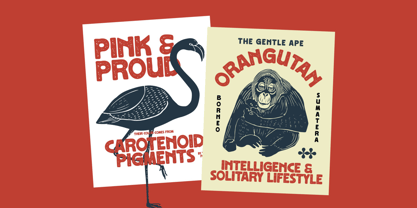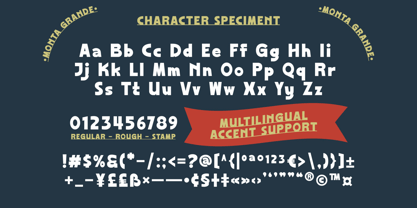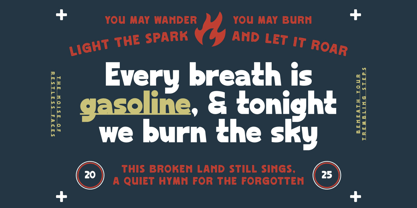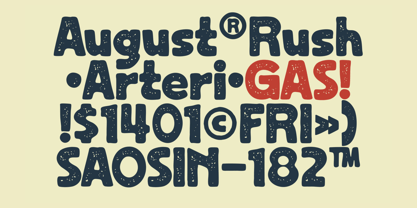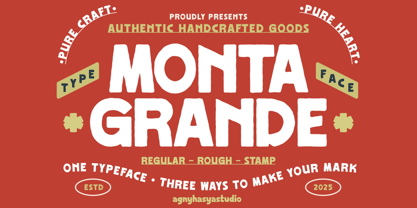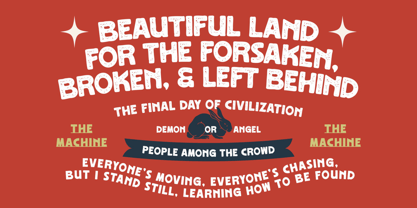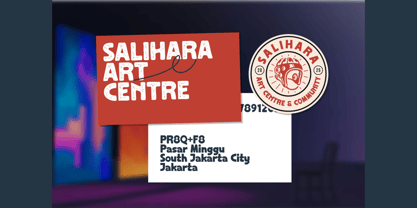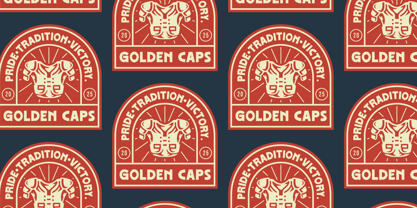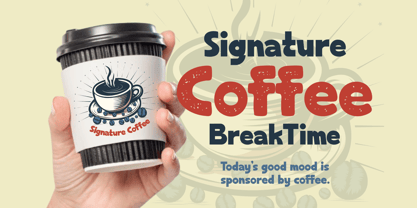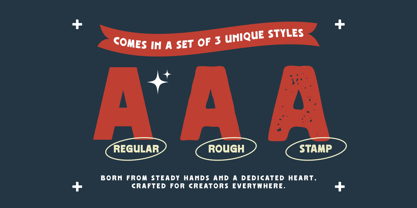
Monta Grande
by Agny Hasya Studio
The Monta Grande Font Family was designed by Firman Maulana and published by Agny Hasya Studio. Monta Grande contains 3 styles and family package options. More about this family
Monta Grande is a handcrafted sans-serif font that adds bold character, natural imperfections, and timeless authenticity to every design. Its clean yet distinctive shape creates a strong visual impact, while the handcrafted details give a warm, human touch that sets it apart from standard sans-serif styles. Ideal for impactful logo designs, product packaging, striking quotes, editorial layouts, posters, or any display text that needs to stand out confidently. Monta Grande features three unique styles: Regular, Rough, and Stamp with an authentic letterpress texture, allowing you to select the perfect mood and level of grit for your project. Warm regards, agnyhasyastudio
Designers: Firman Maulana
Foundry: Agny Hasya Studio
Monta Grande